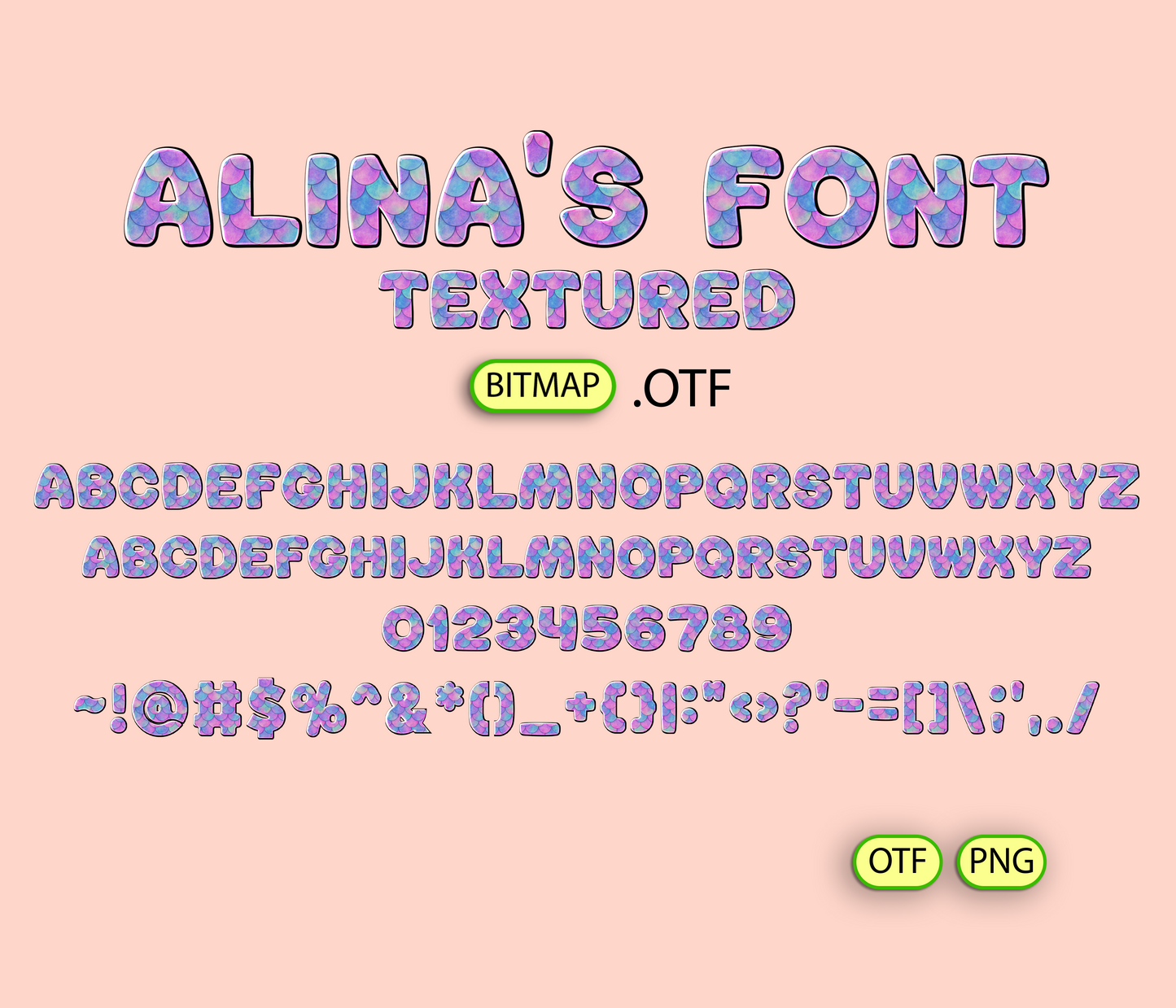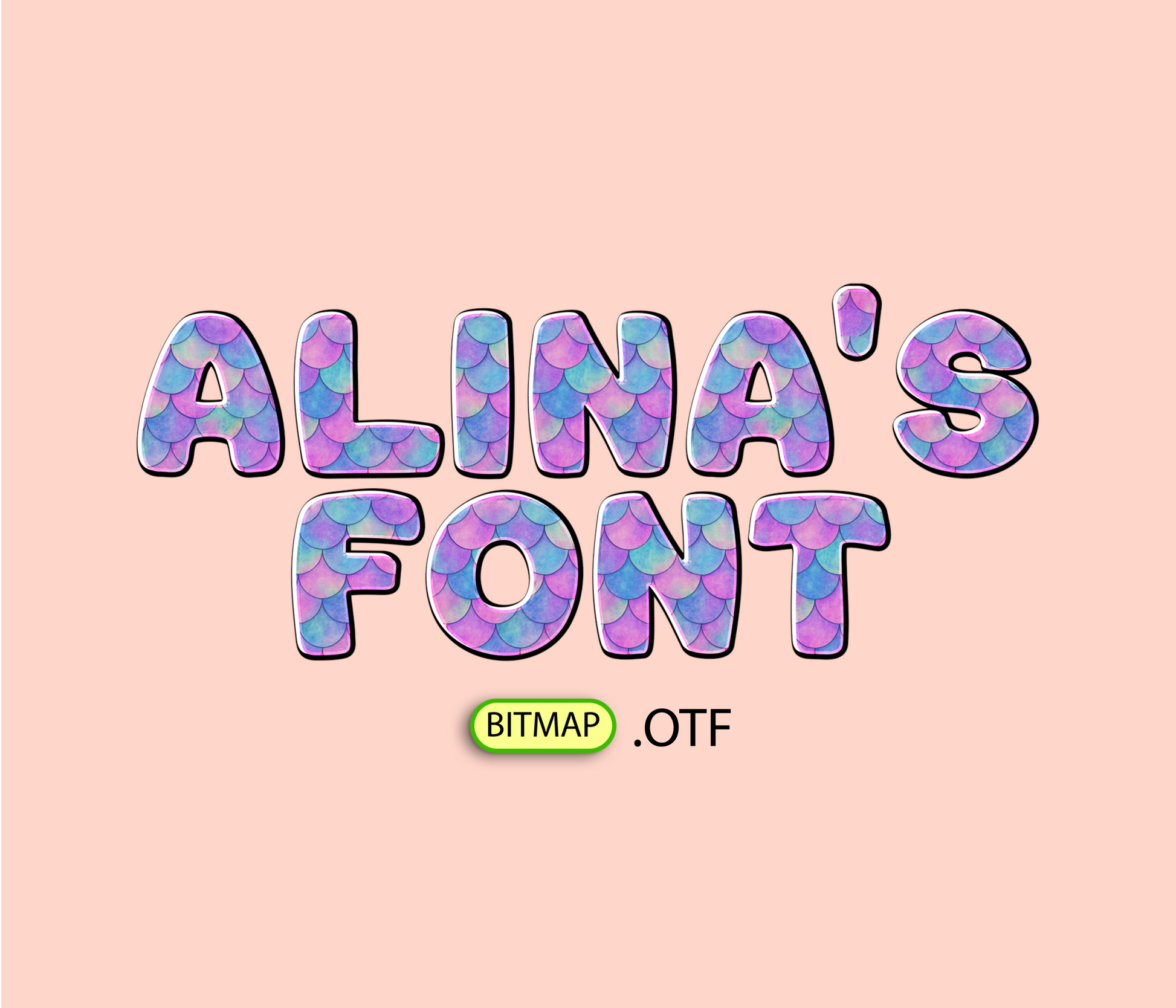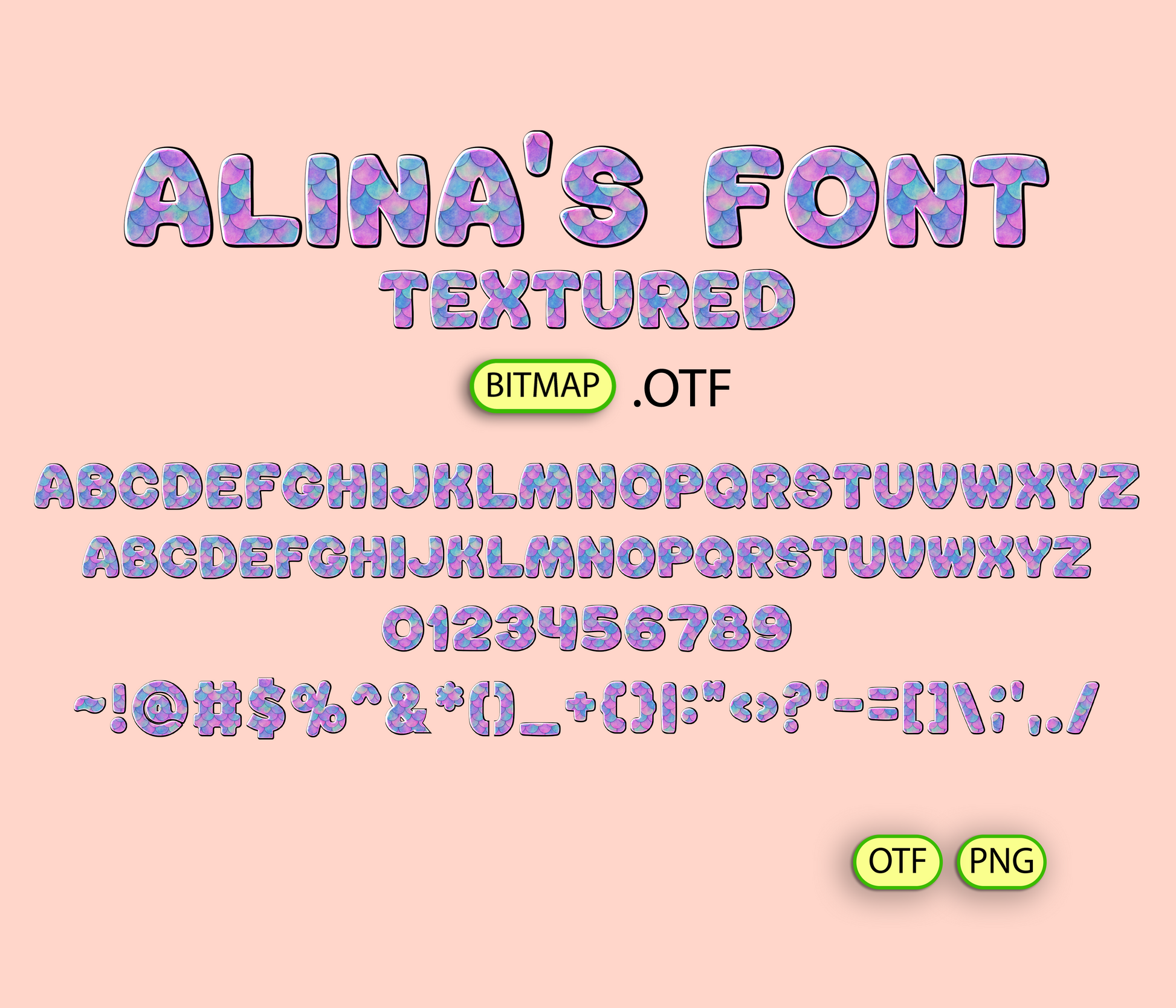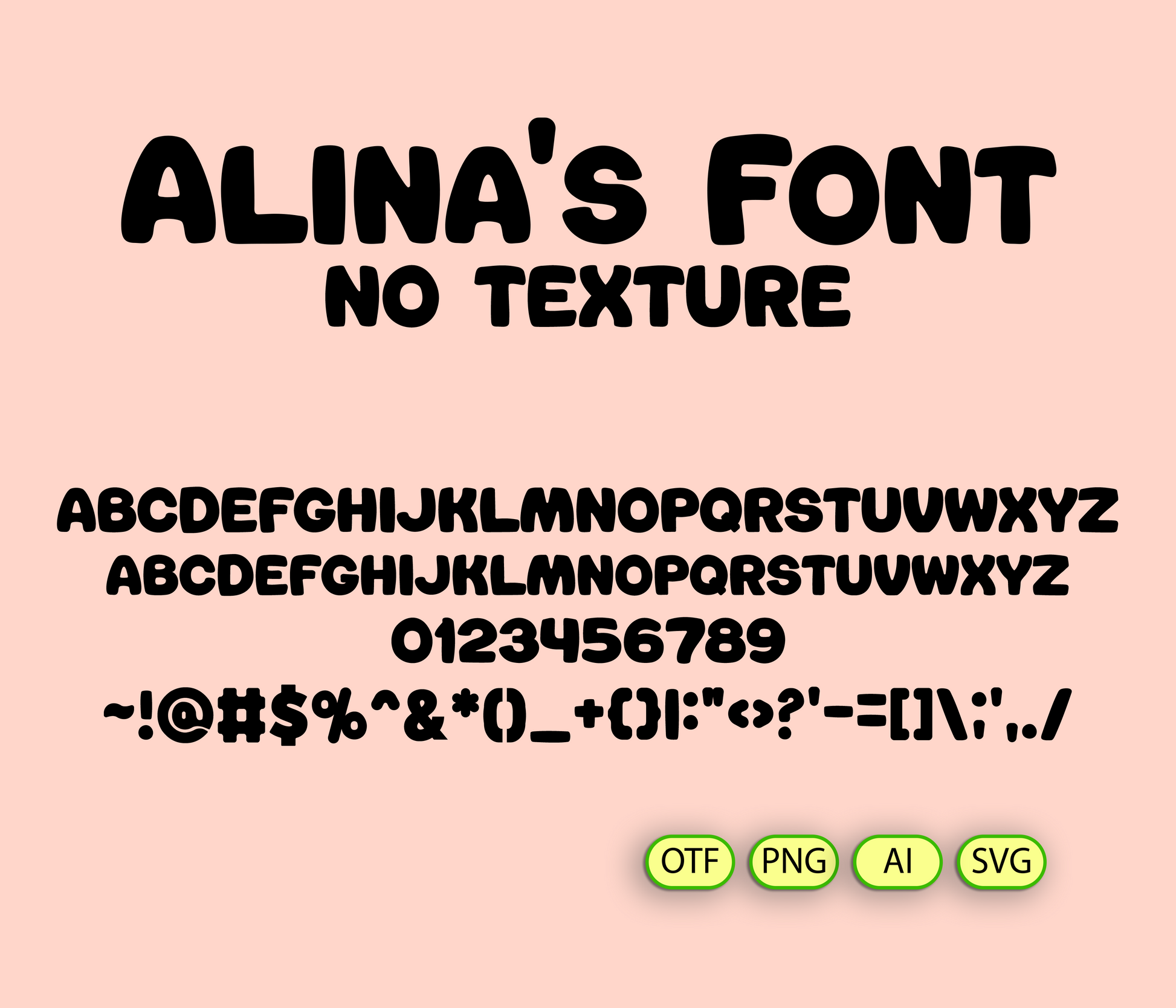
Ocean Enchantment Pattern Font
Step into the magical underwater world with our Ocean Enchantment font, capturing the essence of mythical sea legends and aquatic wonder. Perfect for fantasy creators, coastal event planners, children's content designers, and creative professionals, this font brings the mystical, flowing spirit of underwater realms to your projects. Create enchanting invitations, sea-themed merchandise, or digital content with the shimmering, magical energy of ocean depths and finned mythical beings.
Our Ocean Enchantment font features flowing, graceful curves and scale-inspired characters reflecting the magical allure of underwater mythology. Ideal for:
- Themed Celebrations: Create attention-grabbing invites, posters, and banners for under-the-sea parties, coastal weddings, and fantasy gatherings
- Children's Design: Perfect for storybooks, bedroom decor, and playful accessories that capture young imaginations
- Digital Media: Enhance websites, blogs, and social media with flowing headers and graphics that express aquatic wonder and magic
- Fantasy Content: Add authentic character to fictional worlds, mythical stories, and creative projects inspired by sea legends
- Personal Projects: Bring oceanic magic to scrapbooking, DIY crafts, and home decor inspired by the mystery and beauty of underwater realms
Our font pays tribute to the timeless allure of sea mythology, empowering your designs with its magical and flowing spirit. Whether crafting fantasy materials, designing coastal merchandise, or adding an enchanting touch to personal projects, this font communicates the wonder and mystery of underwater realms. Ready to inject aquatic magic into your creations? This font is your key to enchanting, impactful design.